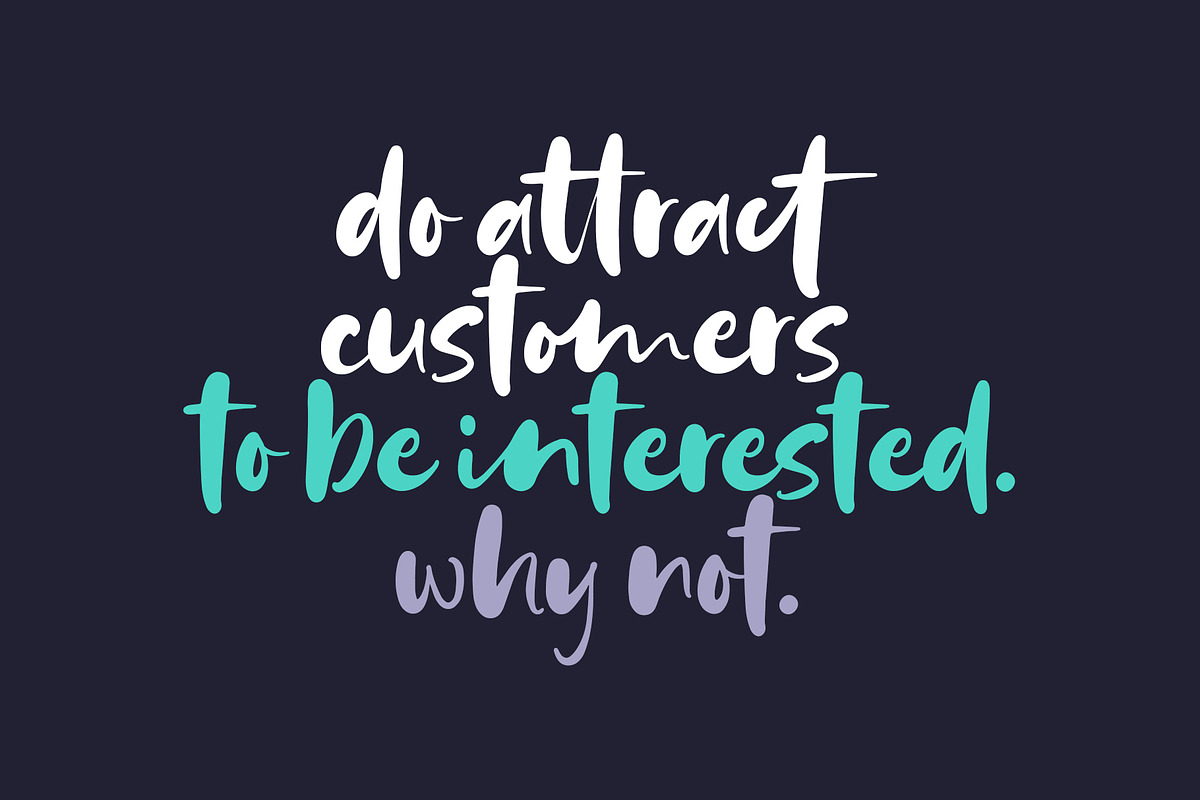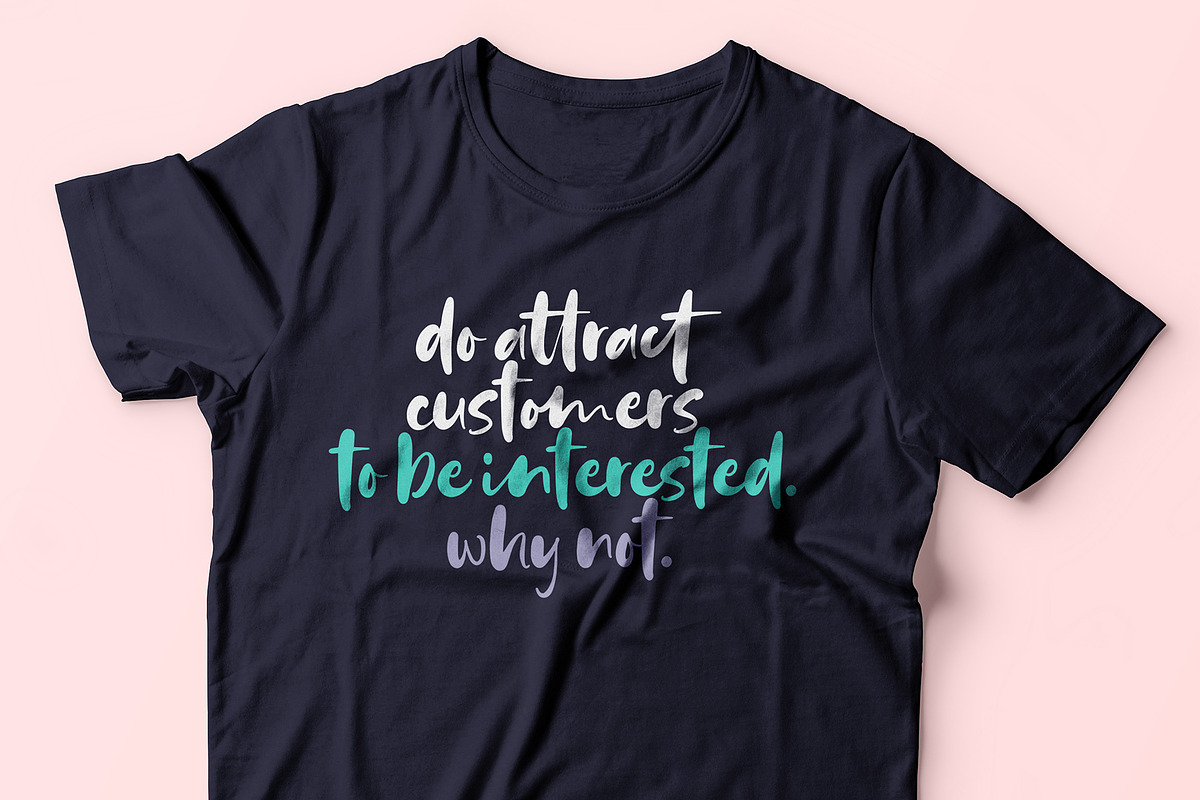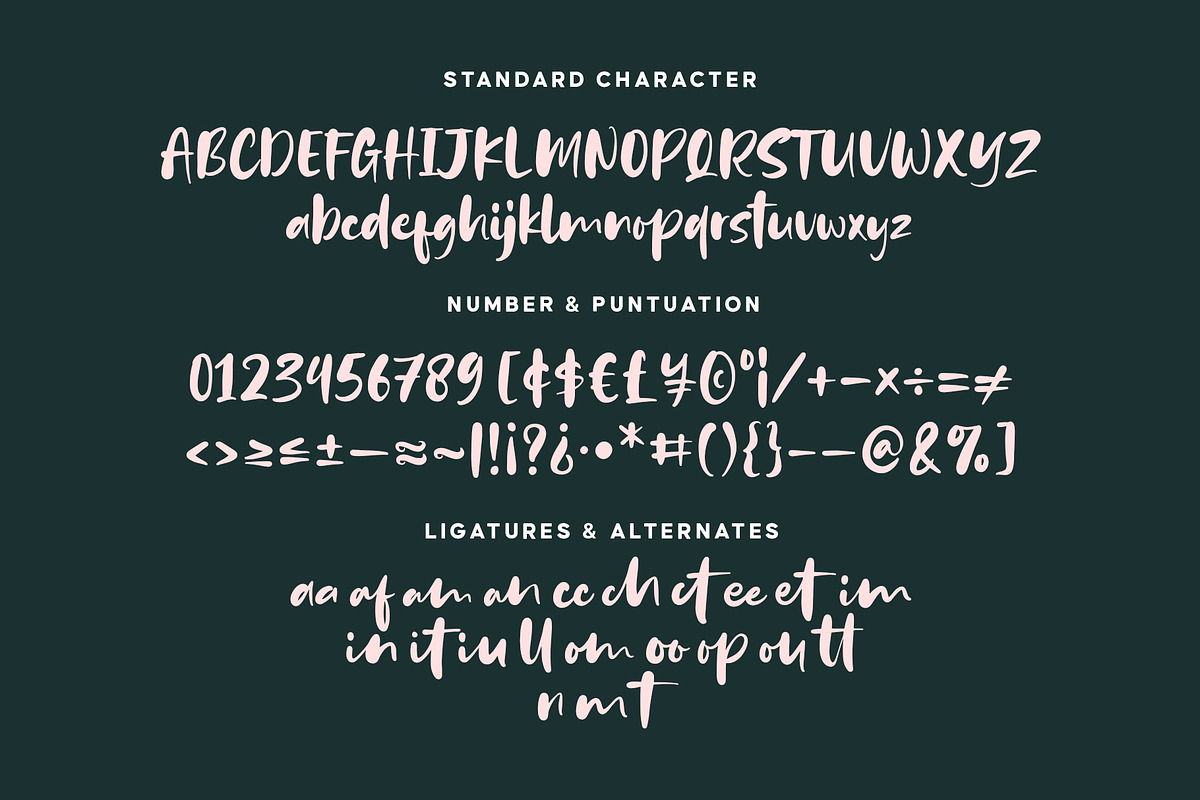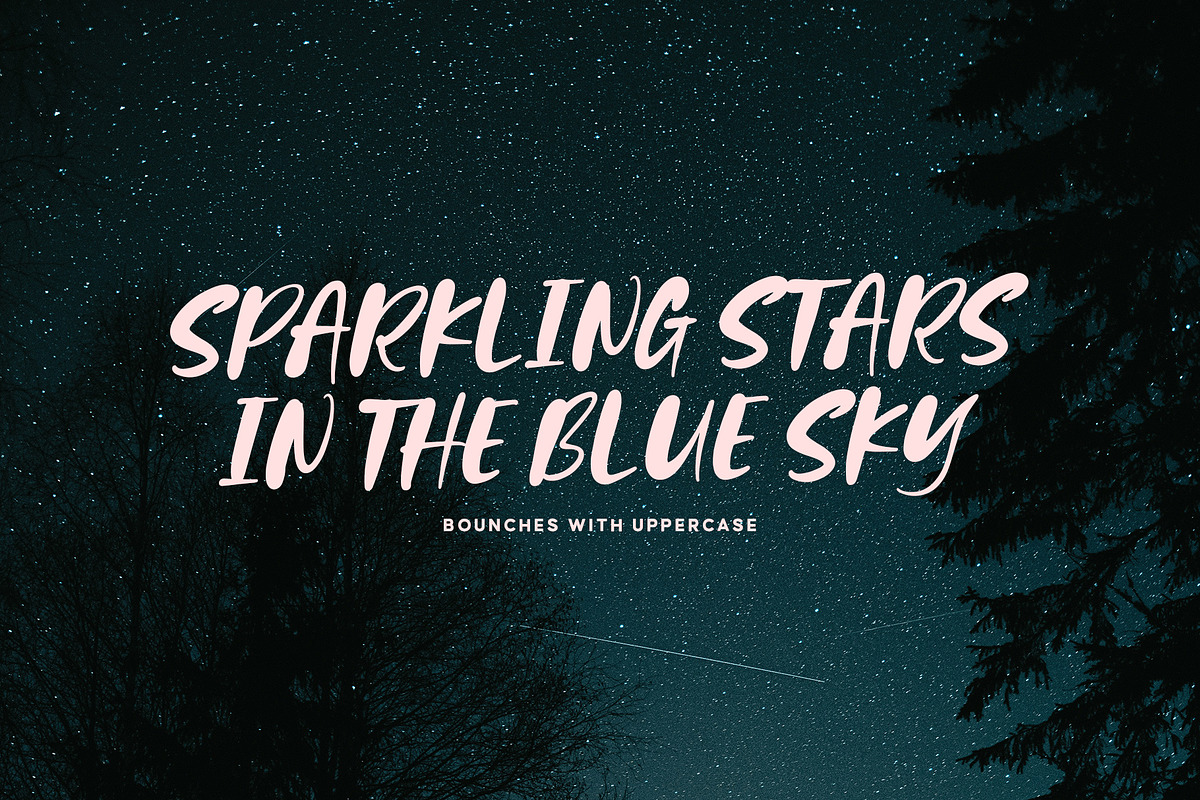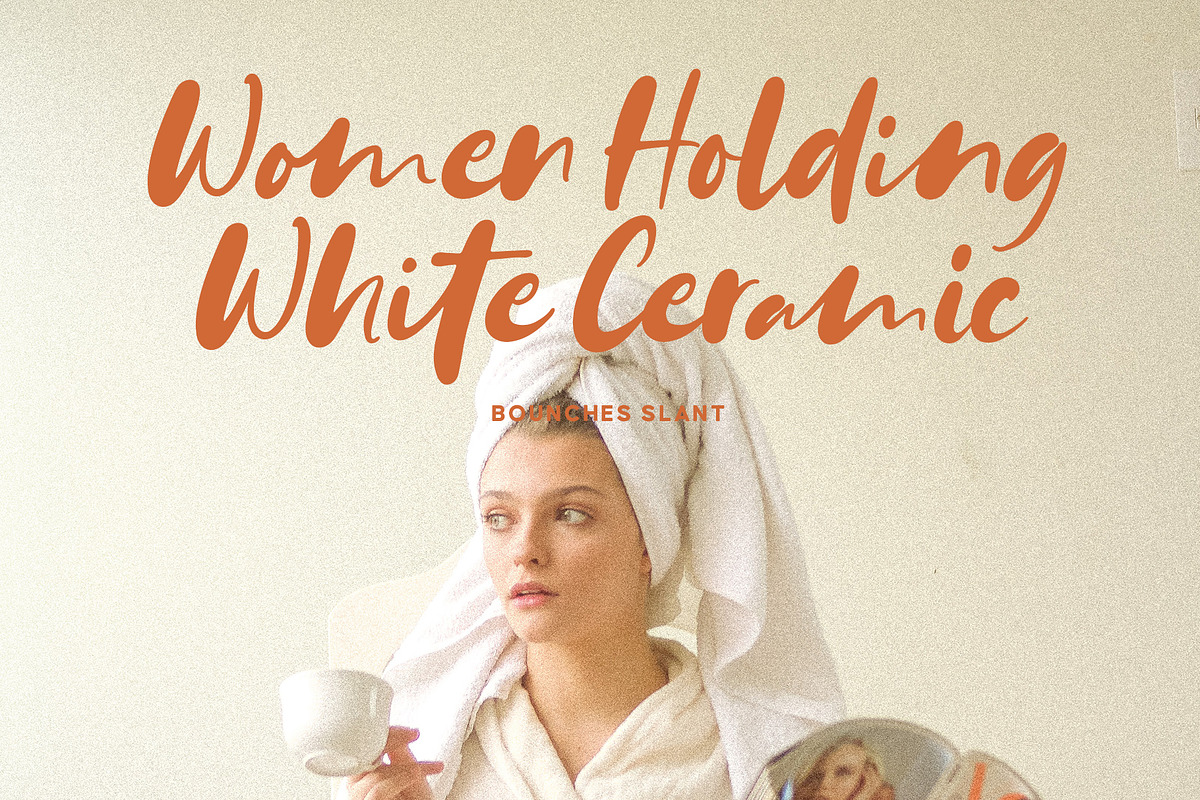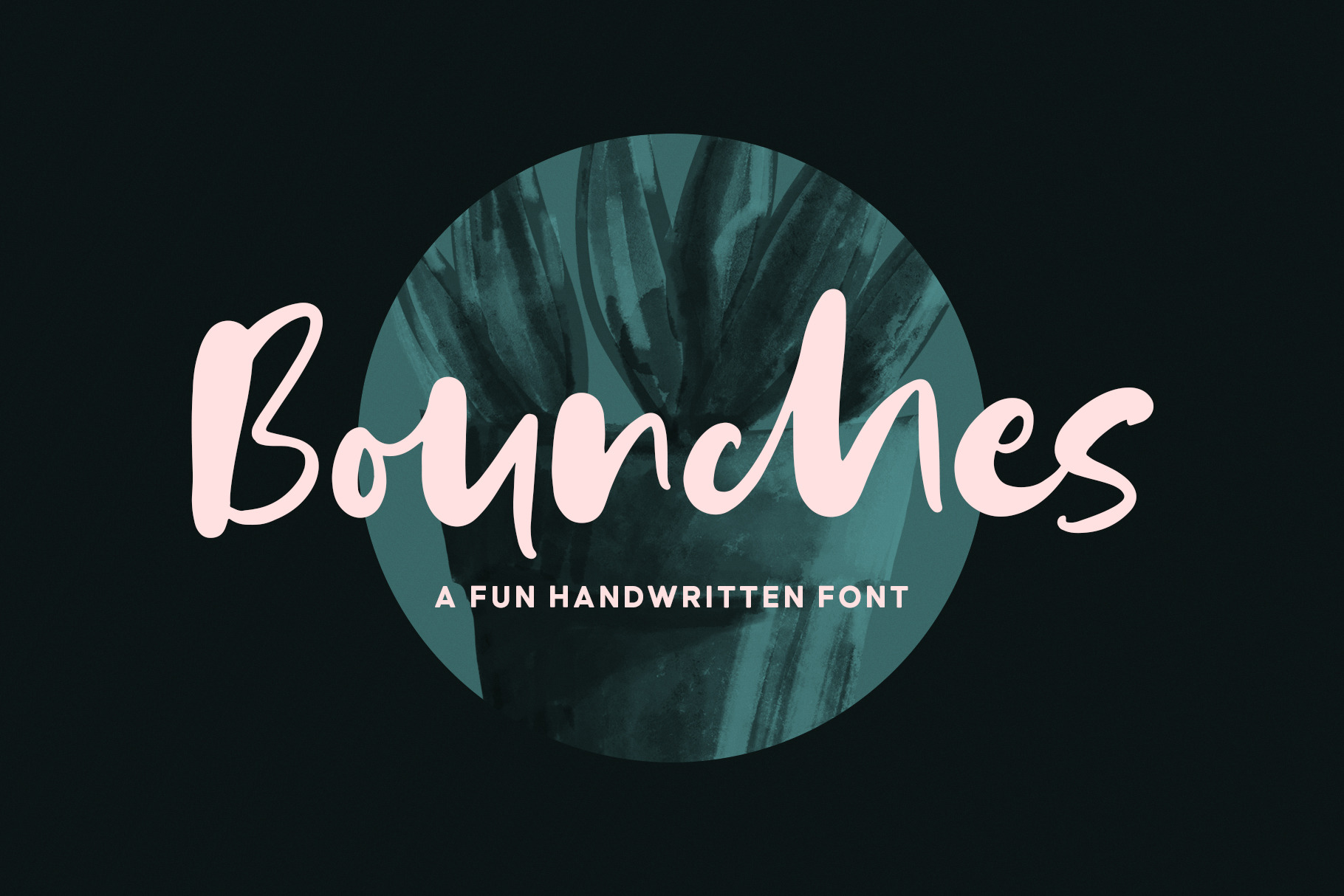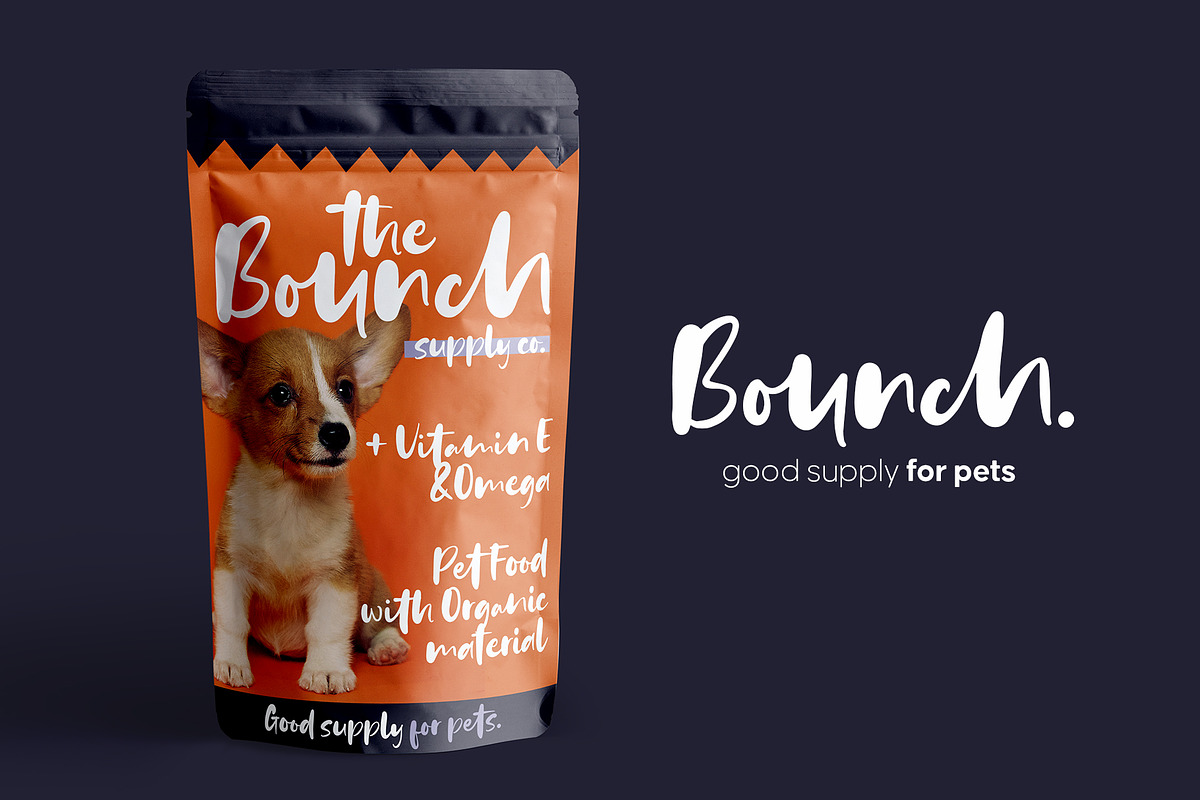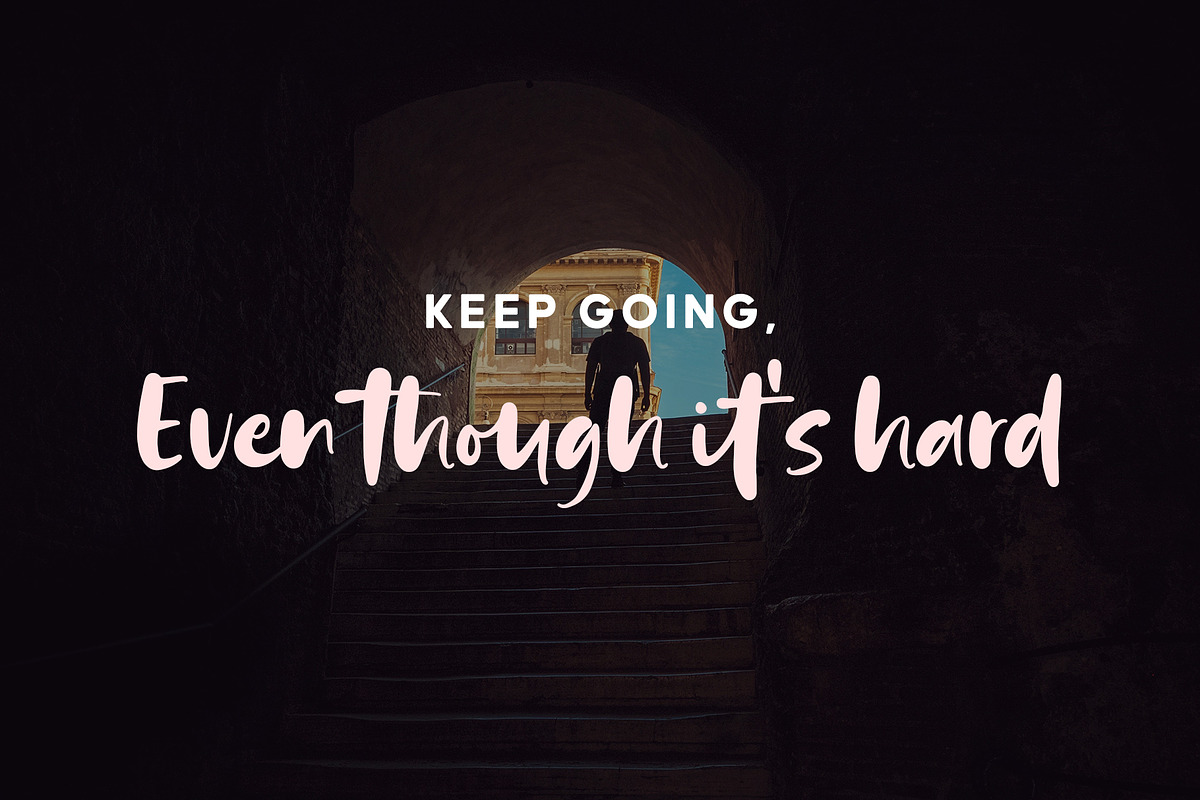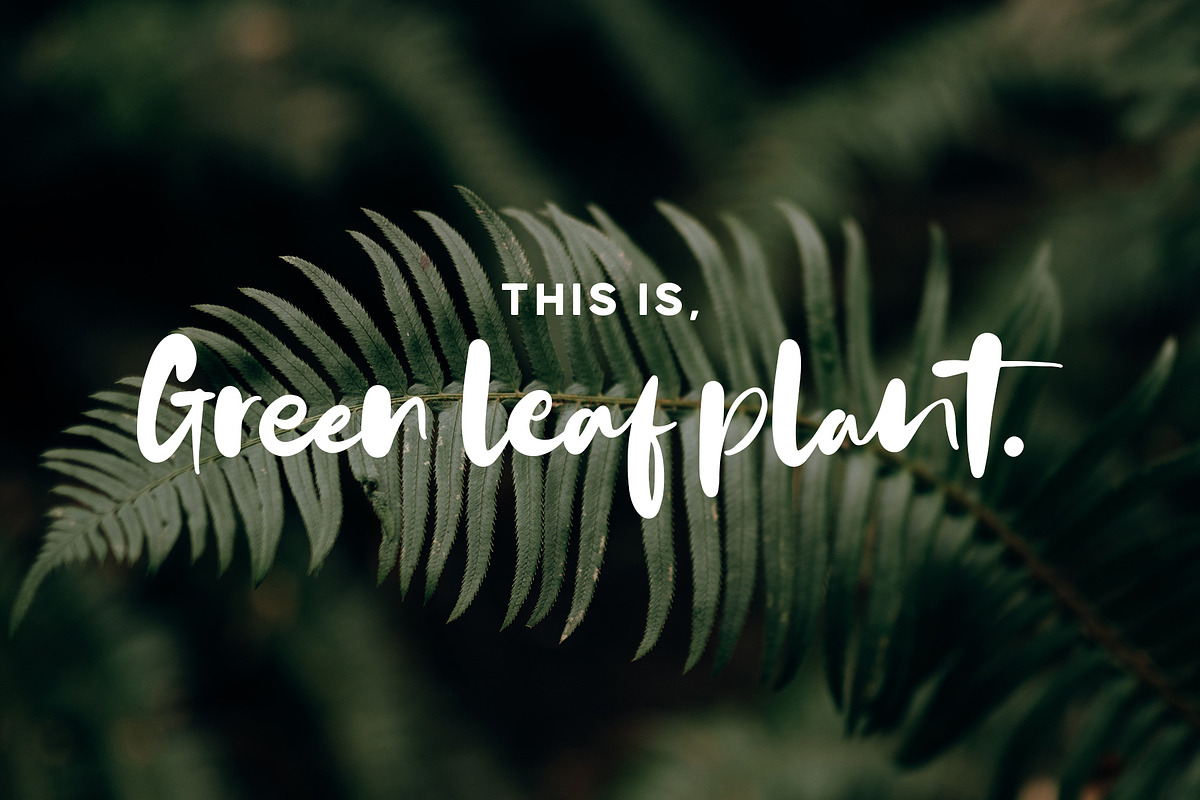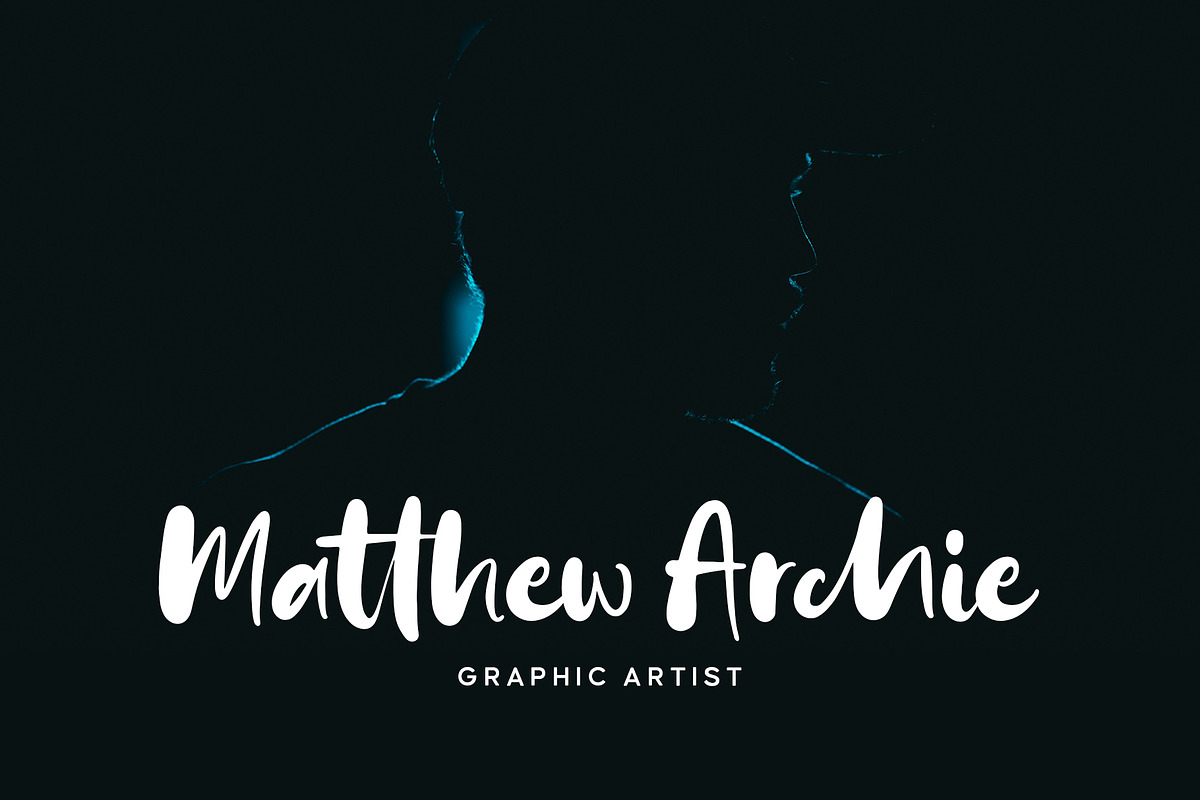
Bounches Font
Bounches is a fun handwritten font, it's dynamic handwriting. Comes with two font styles, regular and slant. Bounches are suitable for branding, advertising, headlines, packaging design, and many more.
- Number & punctuation symbols
- Stylistic Sets
- International characters (Multilingual)